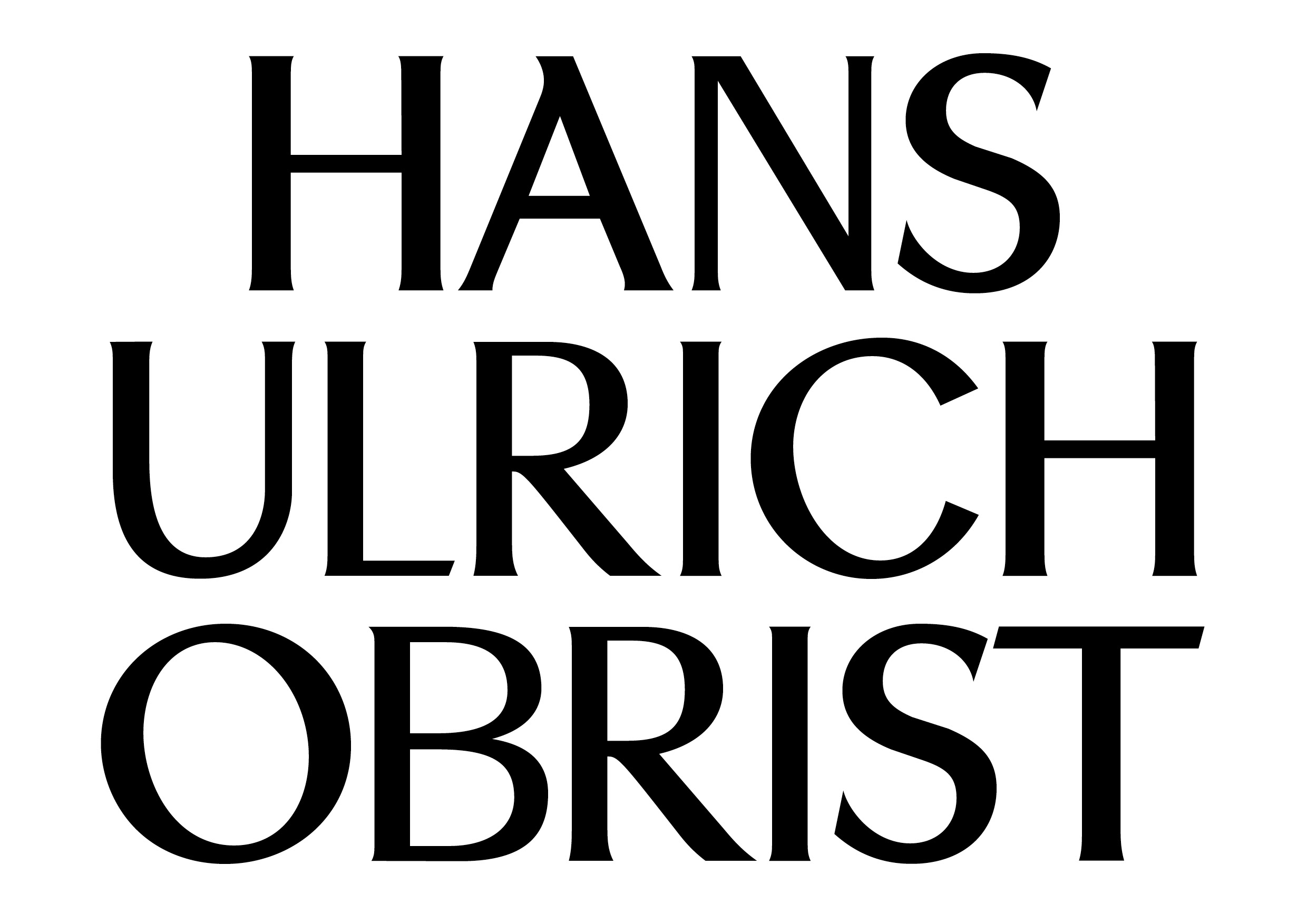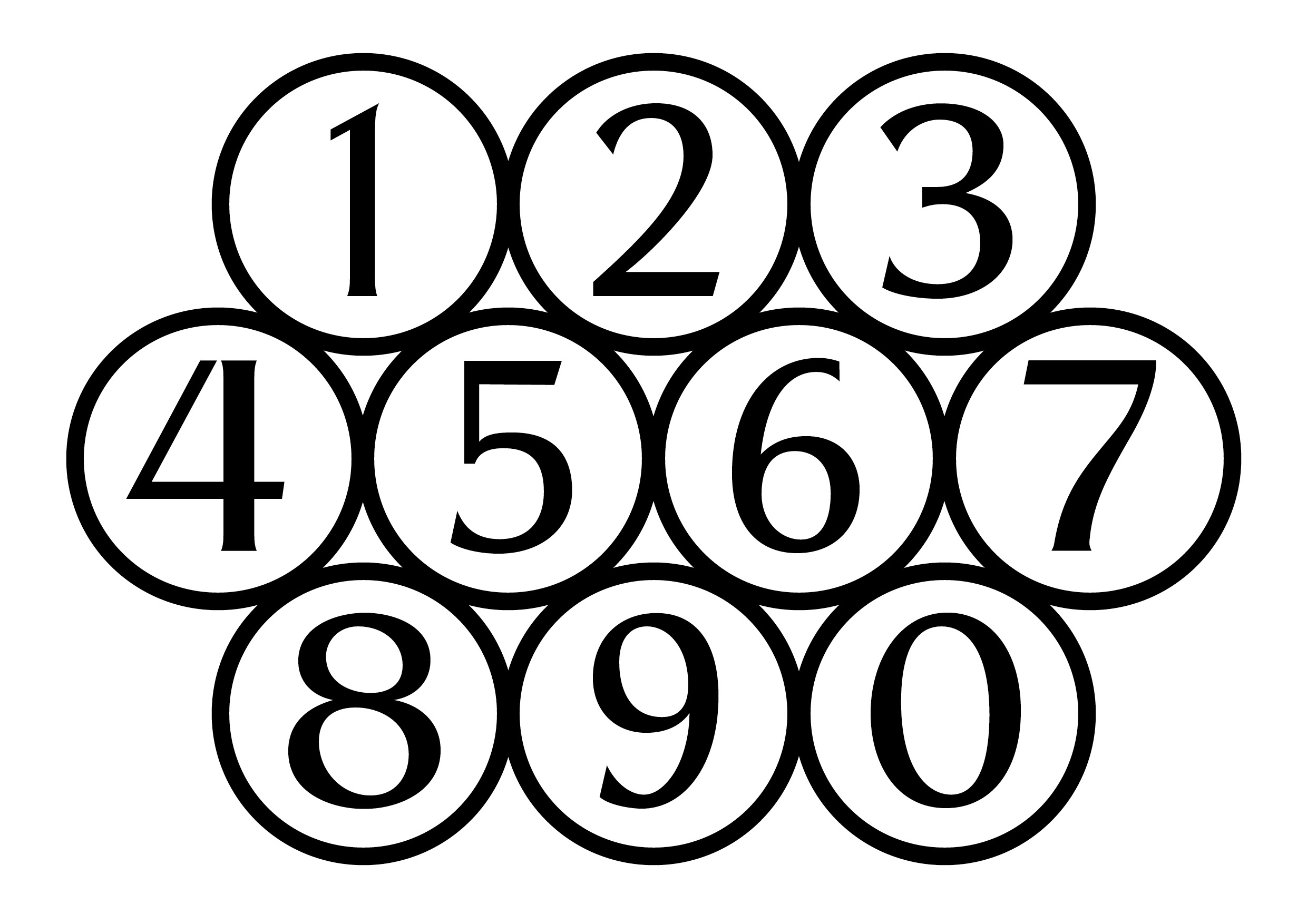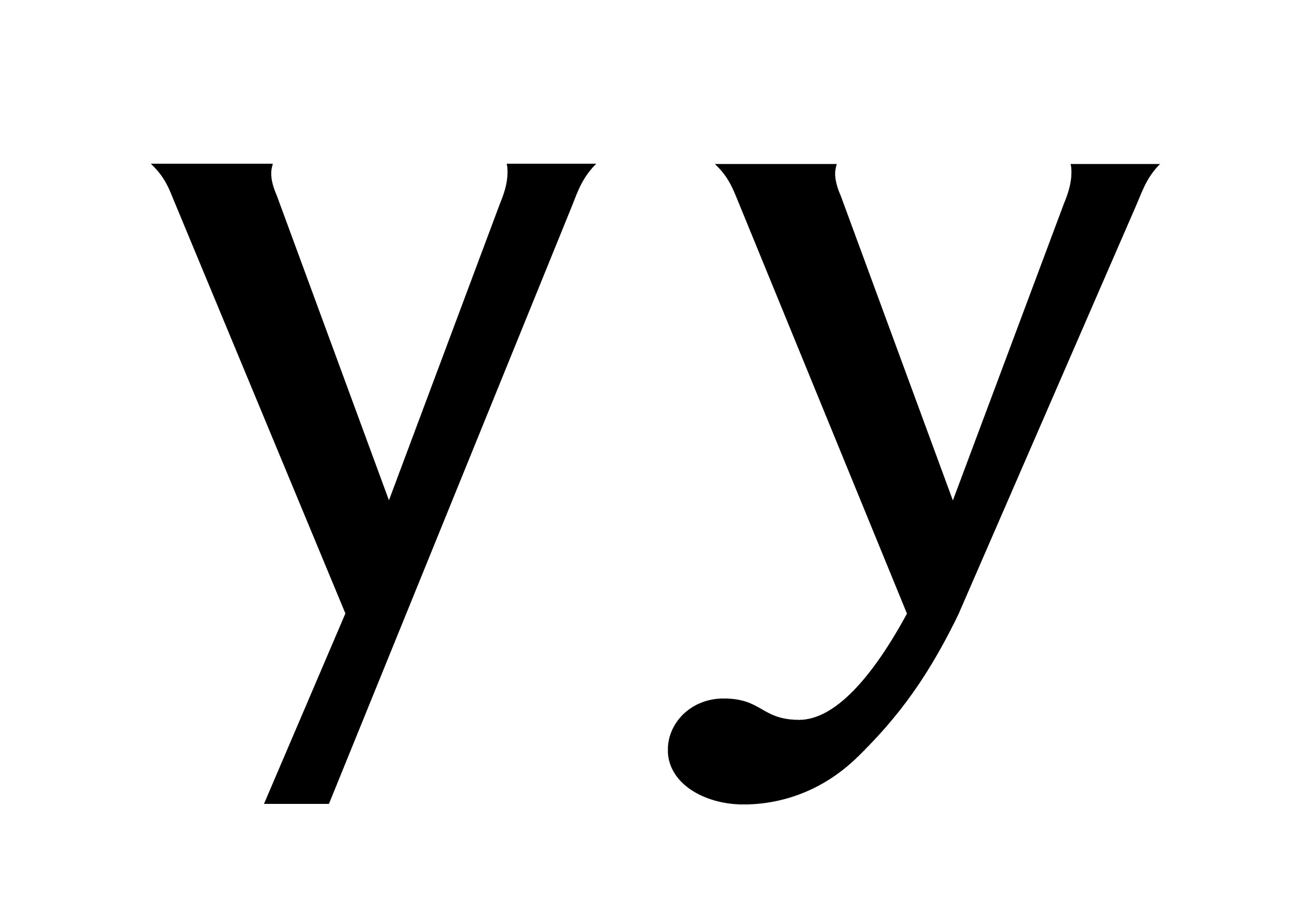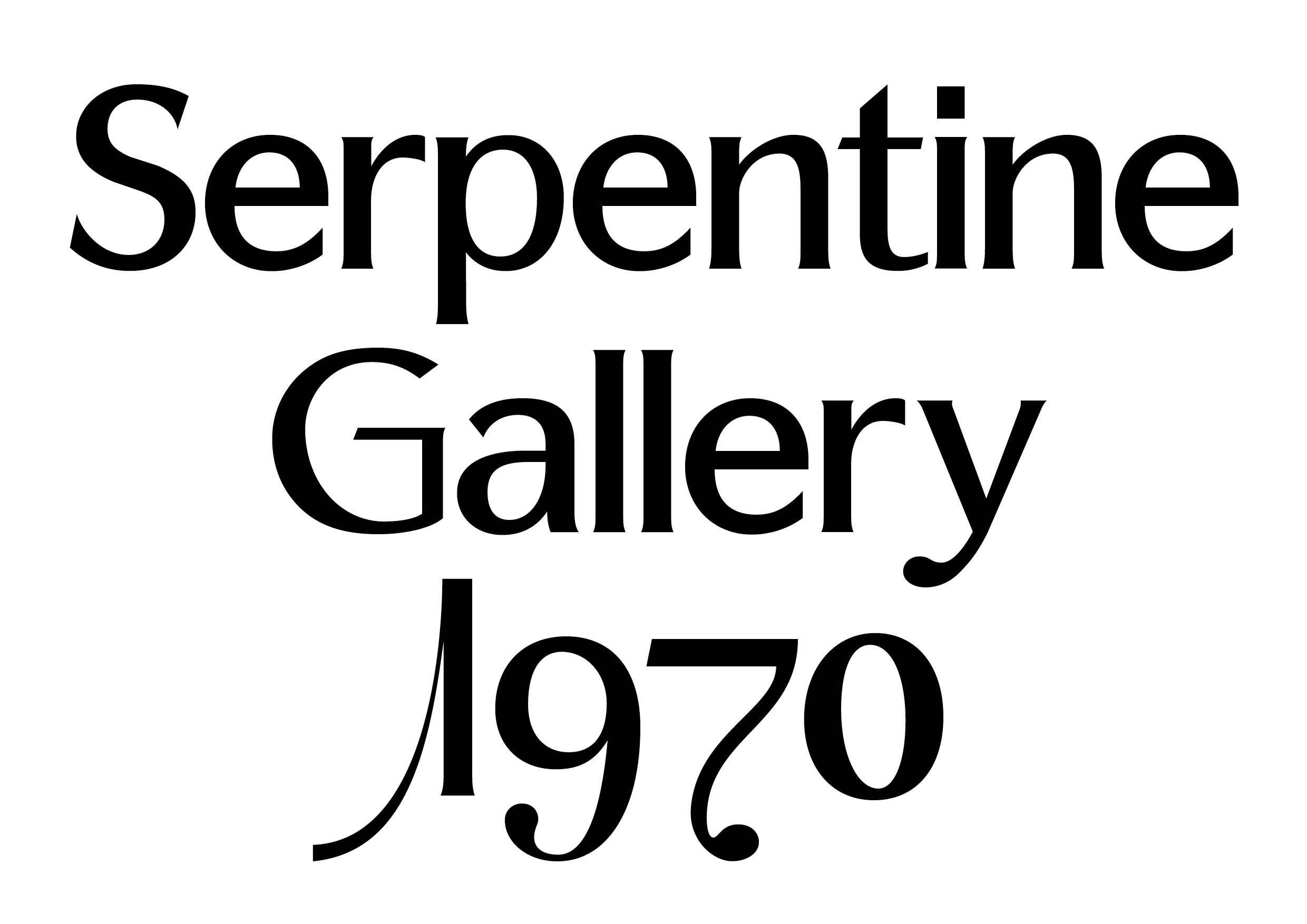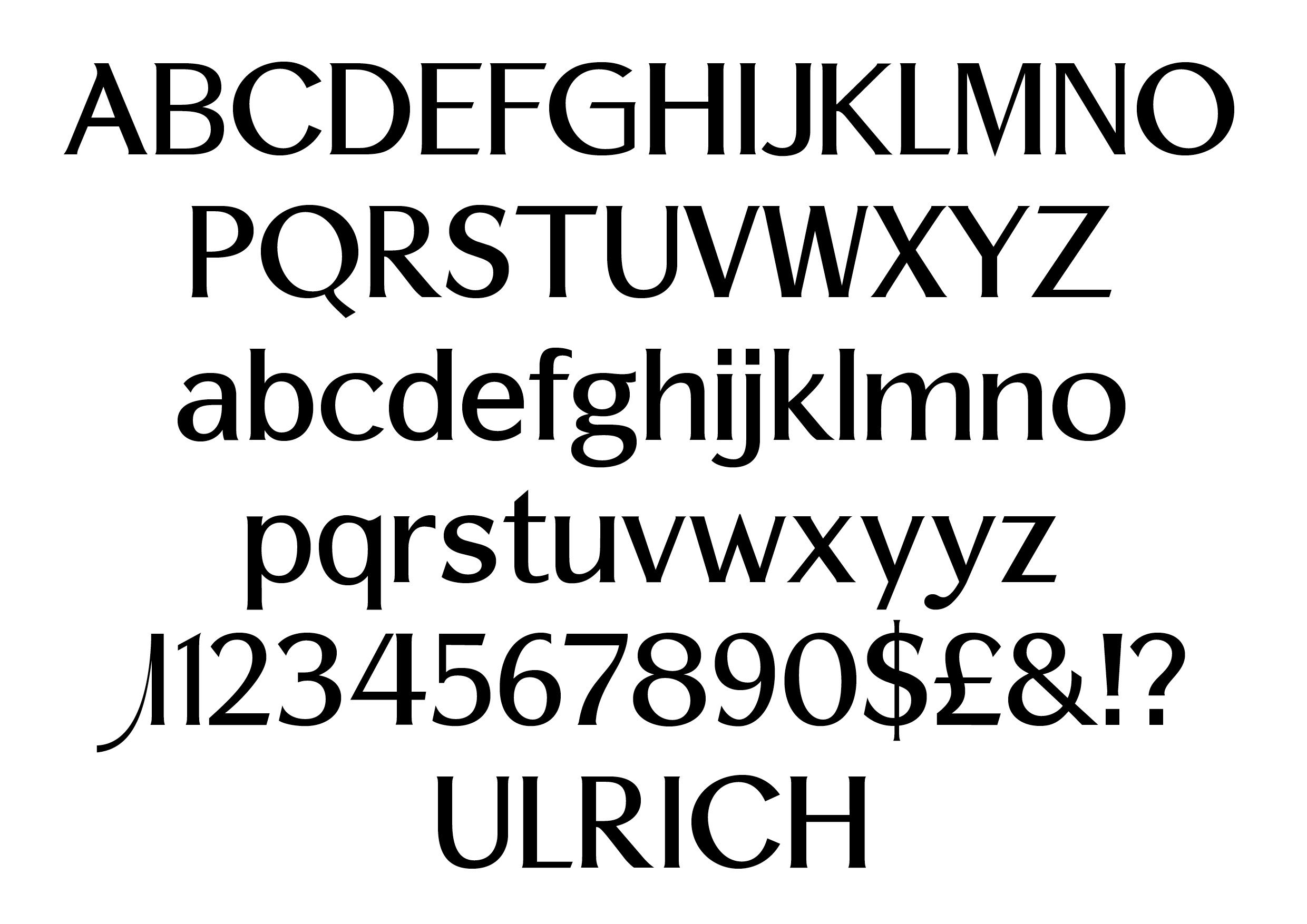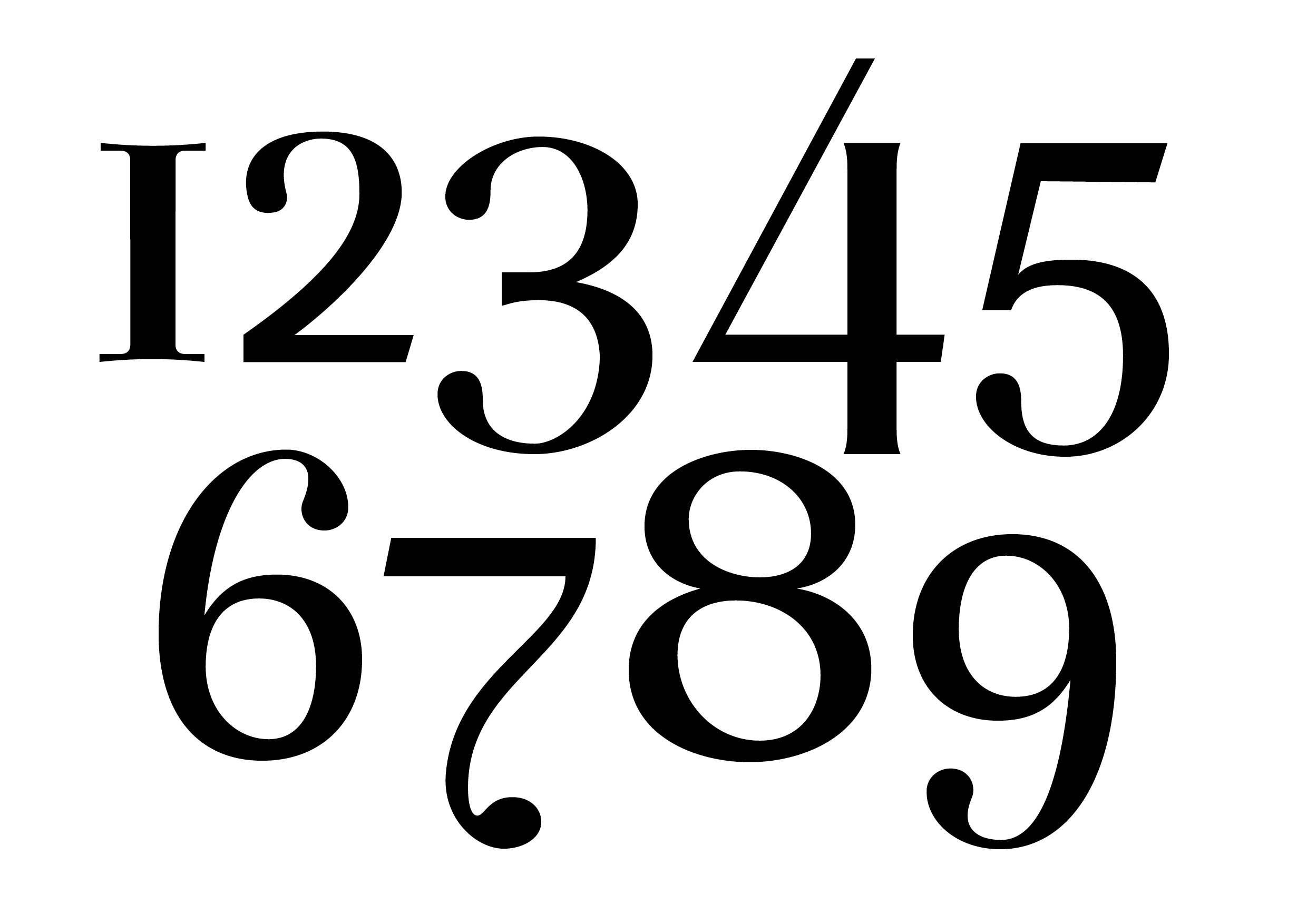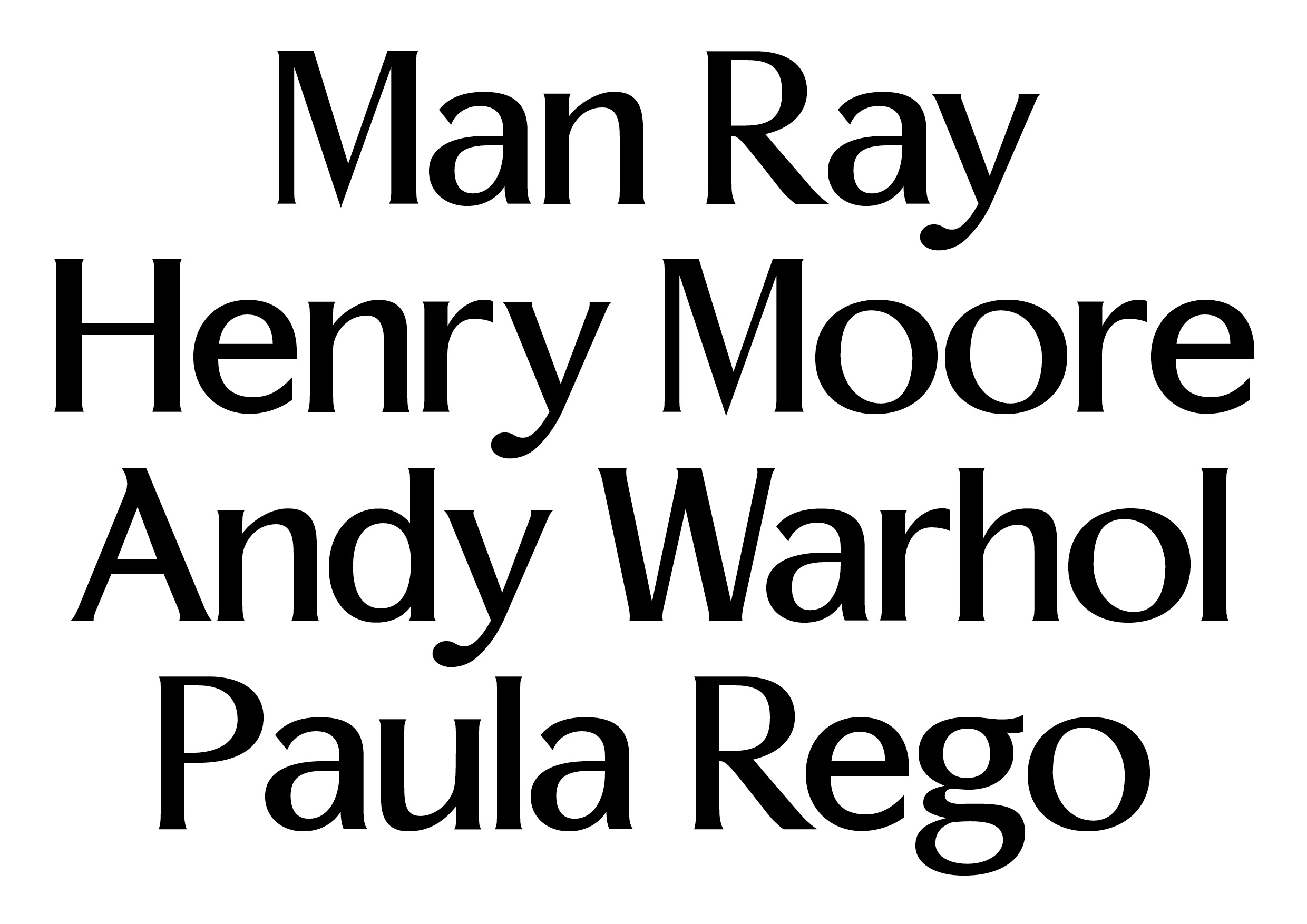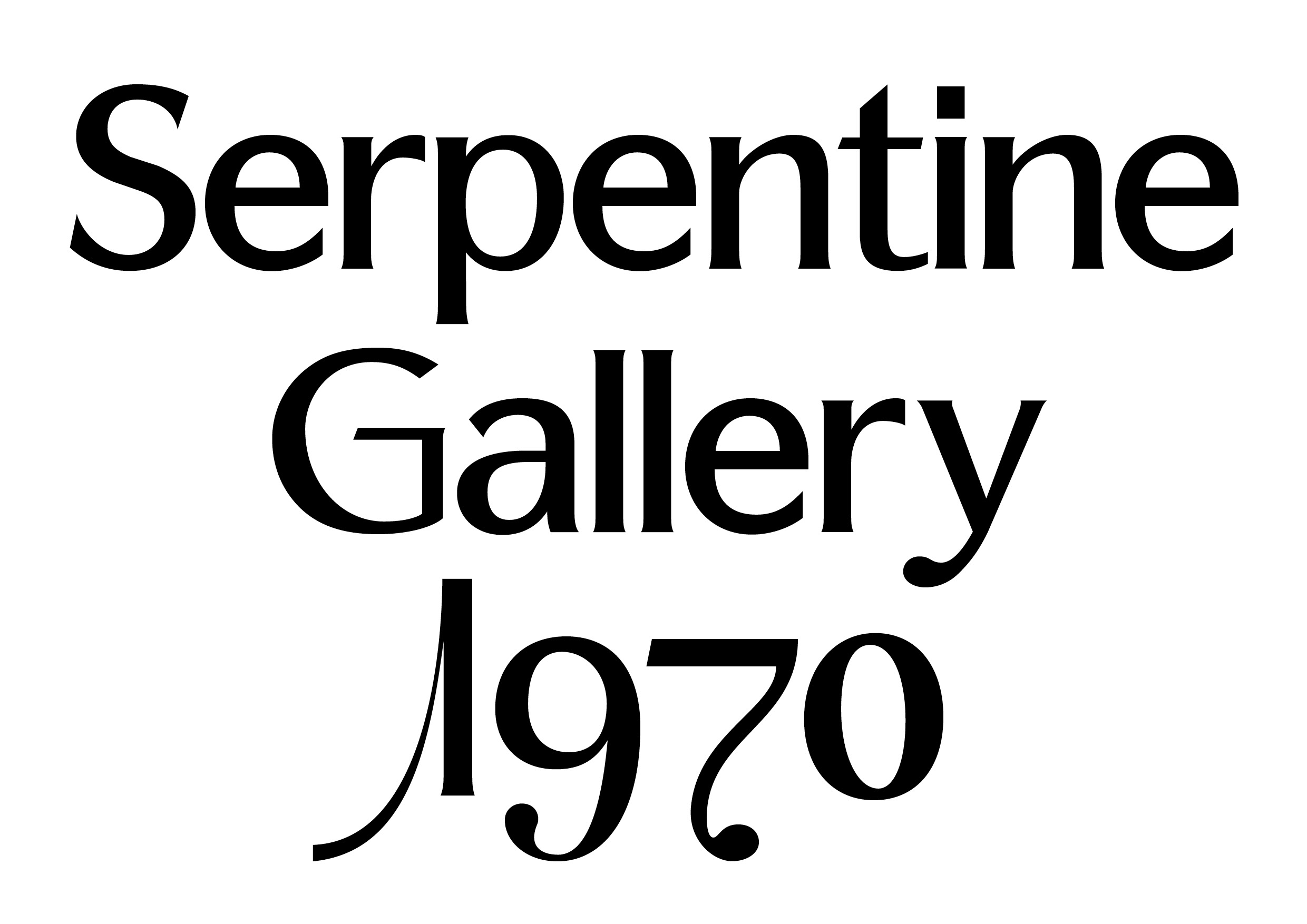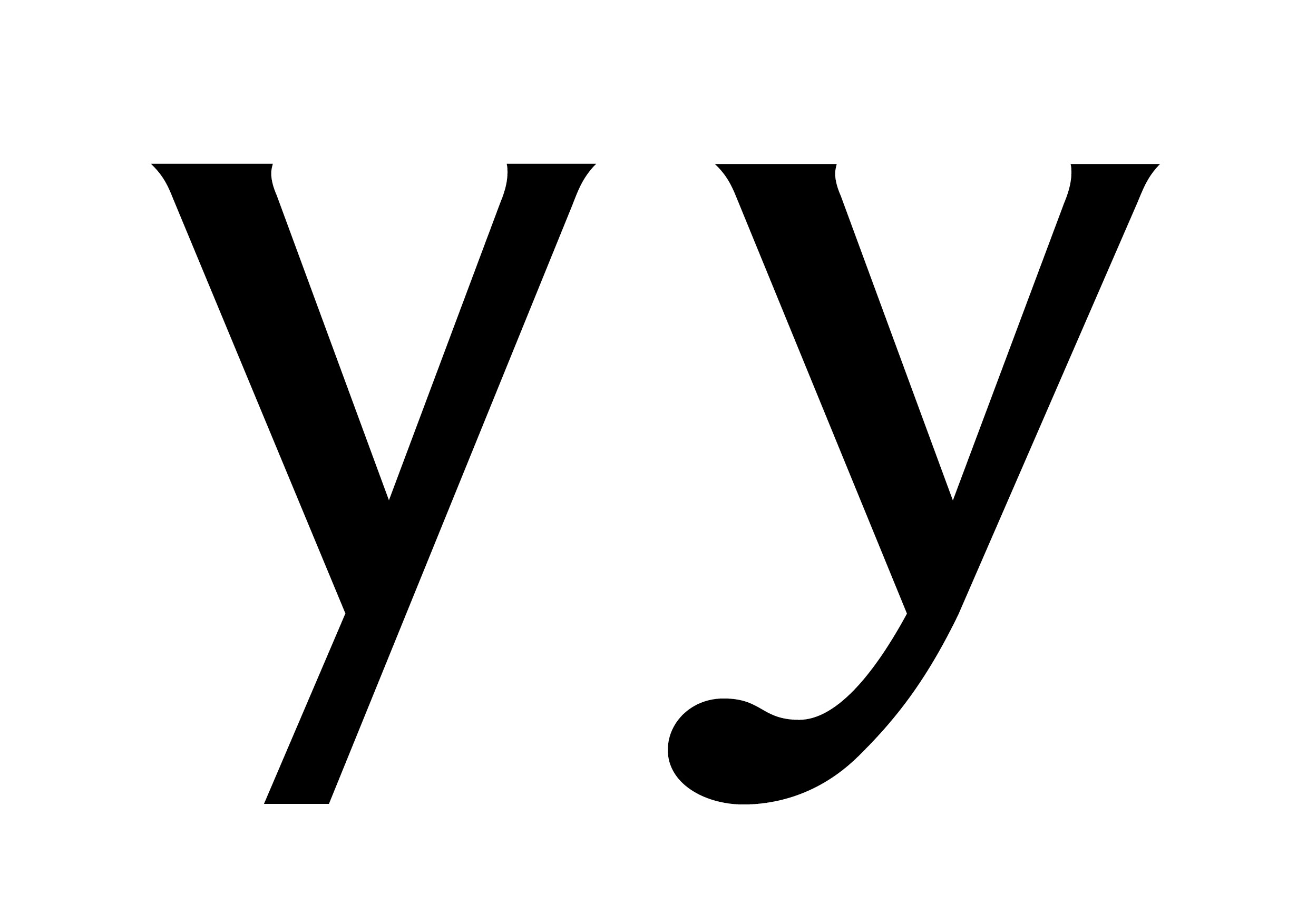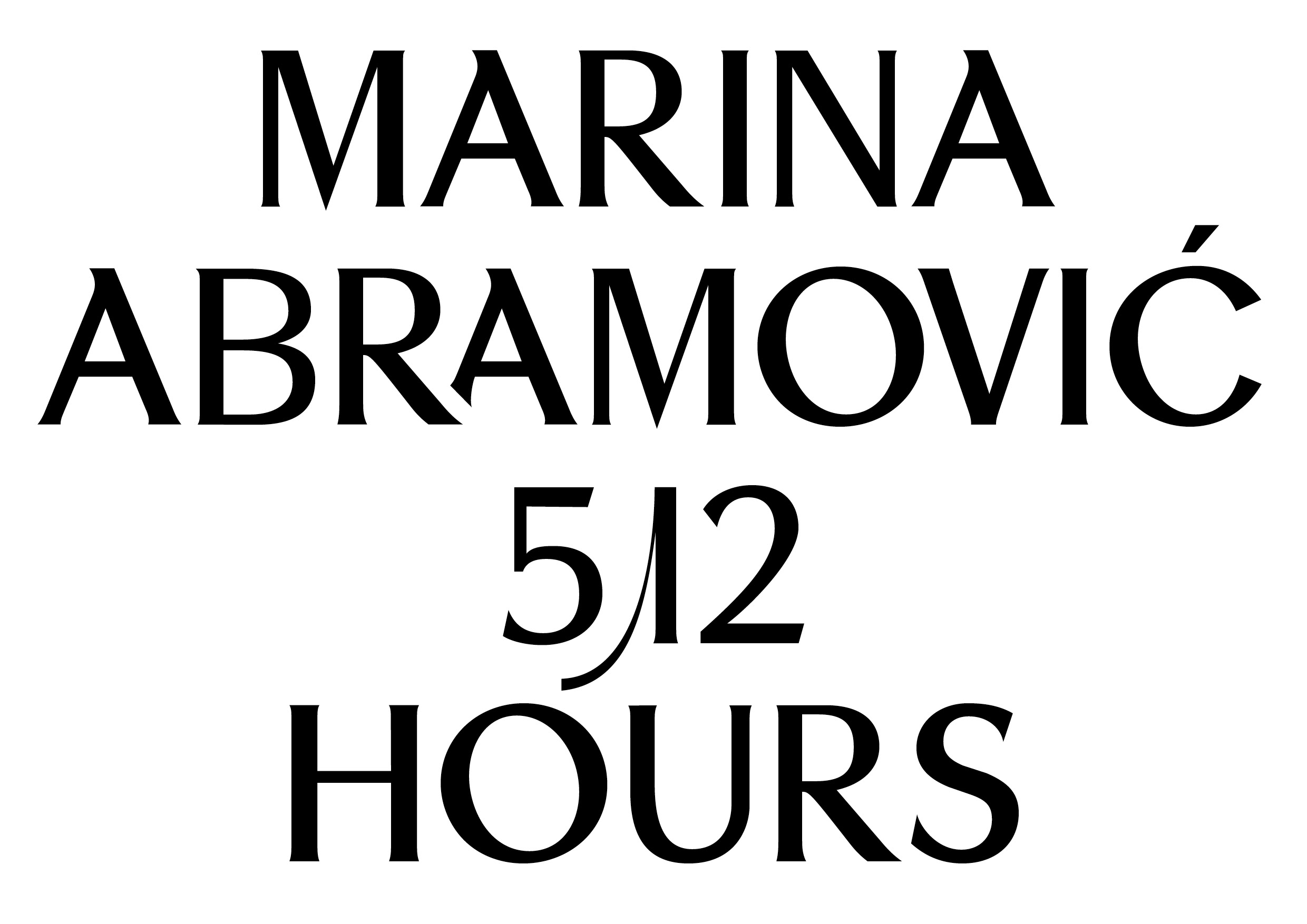
Ulrich
The best conversations rarely stay on topic. Ulrich was inspired by curator Hans Ulrich Obrist and his way of opening art up to different people and different ideas. That spirit became the starting point for the typeface. Classical glyphic shapes sit beside sans serif forms. Some letters feel rational while others seem to come from somewhere else entirely. A set of alternates lets you decide how far to push it. Choose the quieter characters and Ulrich behaves. Choose the stranger ones and the same word becomes something completely different. We made the pieces. What you do with them is up to you.